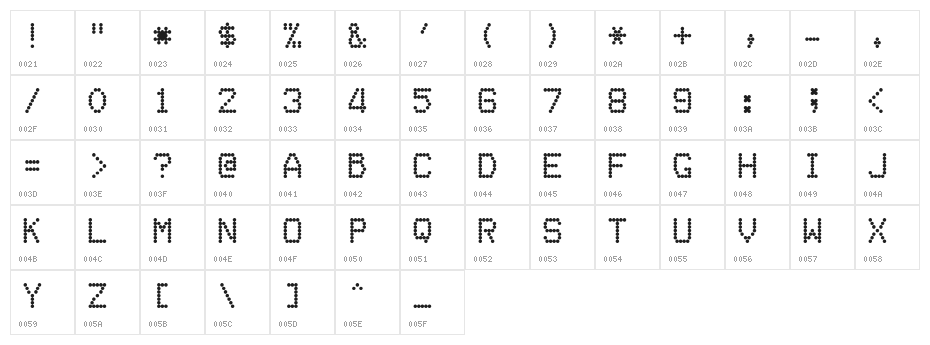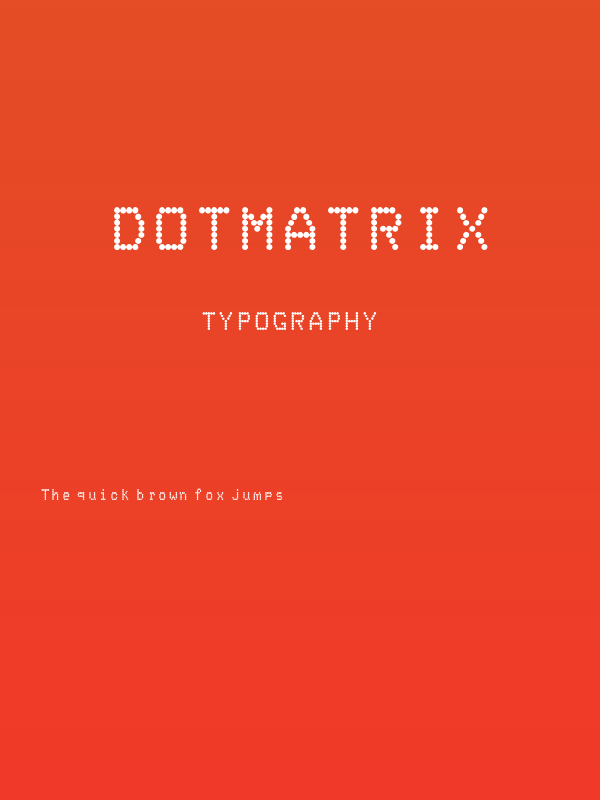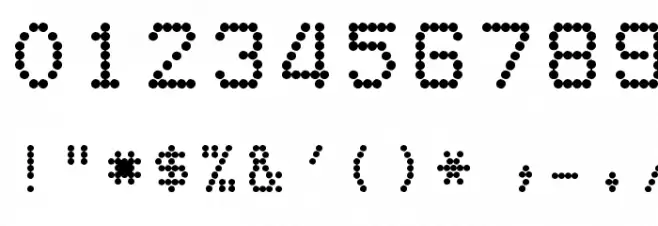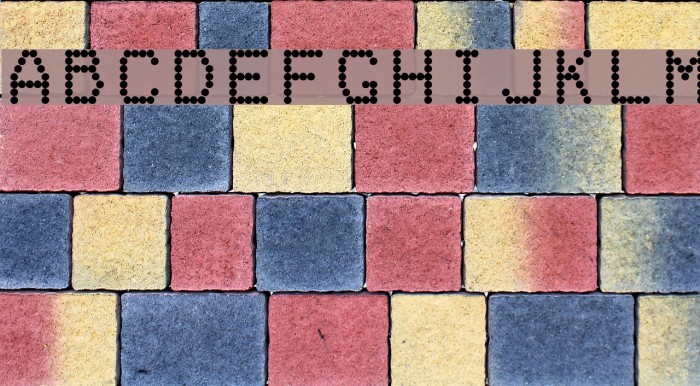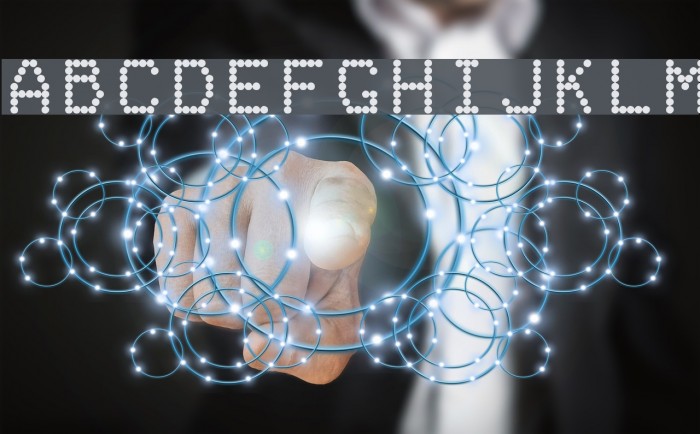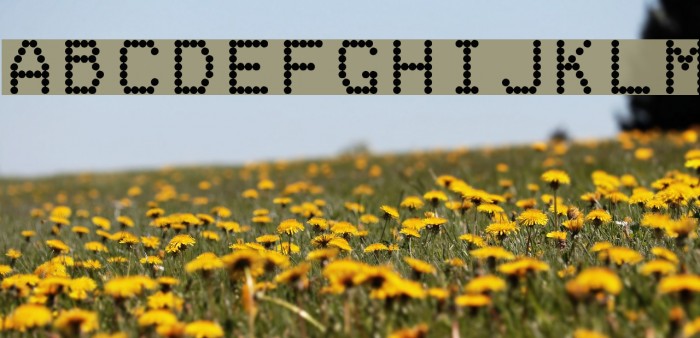
DotMatrix Font
DotMatrix Description
This font is characterized by its unique dot matrix style, reminiscent of old digital displays and printers. Each character is formed by a grid of dots, creating a pixelated appearance that evokes a sense of retro technology. The uniformity of the dots across all characters provides a consistent and cohesive look, while the spacing between the dots ensures readability. This design is both nostalgic and modern, making it suitable for projects that aim to blend the past with the present. The font's simplicity and clarity make it ideal for digital displays, tech-themed designs, and any creative work that requires a distinctive, eye-catching typeface.
| Overall Style | Retro, Modern |
| Use Case | Headlines, Logos, Digital displays |
| Proposed Projects | Ideal for digital displays, tech-themed designs, retro posters, and creative projects requiring a unique, nostalgic typeface. |